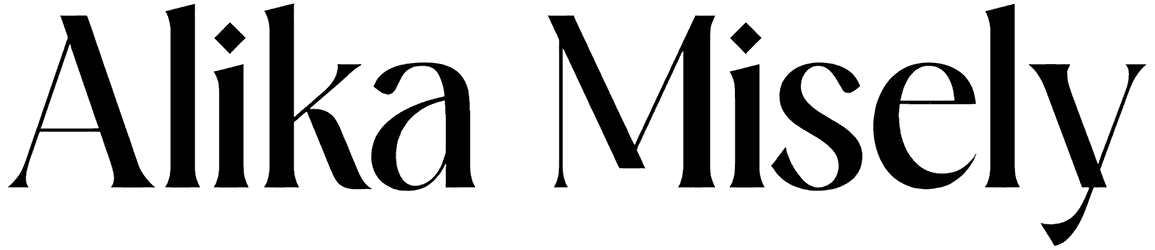
Alika Misely Font
Fashion texts are usually written with fancy-looking fonts, and the Alika Misely font can emphasize the uniqueness of any fashion brand. It’s styled with a minimal serif font with thick and thin elements that convey a calming and elegant look to the reader.
You can also use this serif font for any cosmetic product, book, movie titles, retro play flyers, and invitation cards. The one-of-a-kind serifs on this one are only present on the capital set.